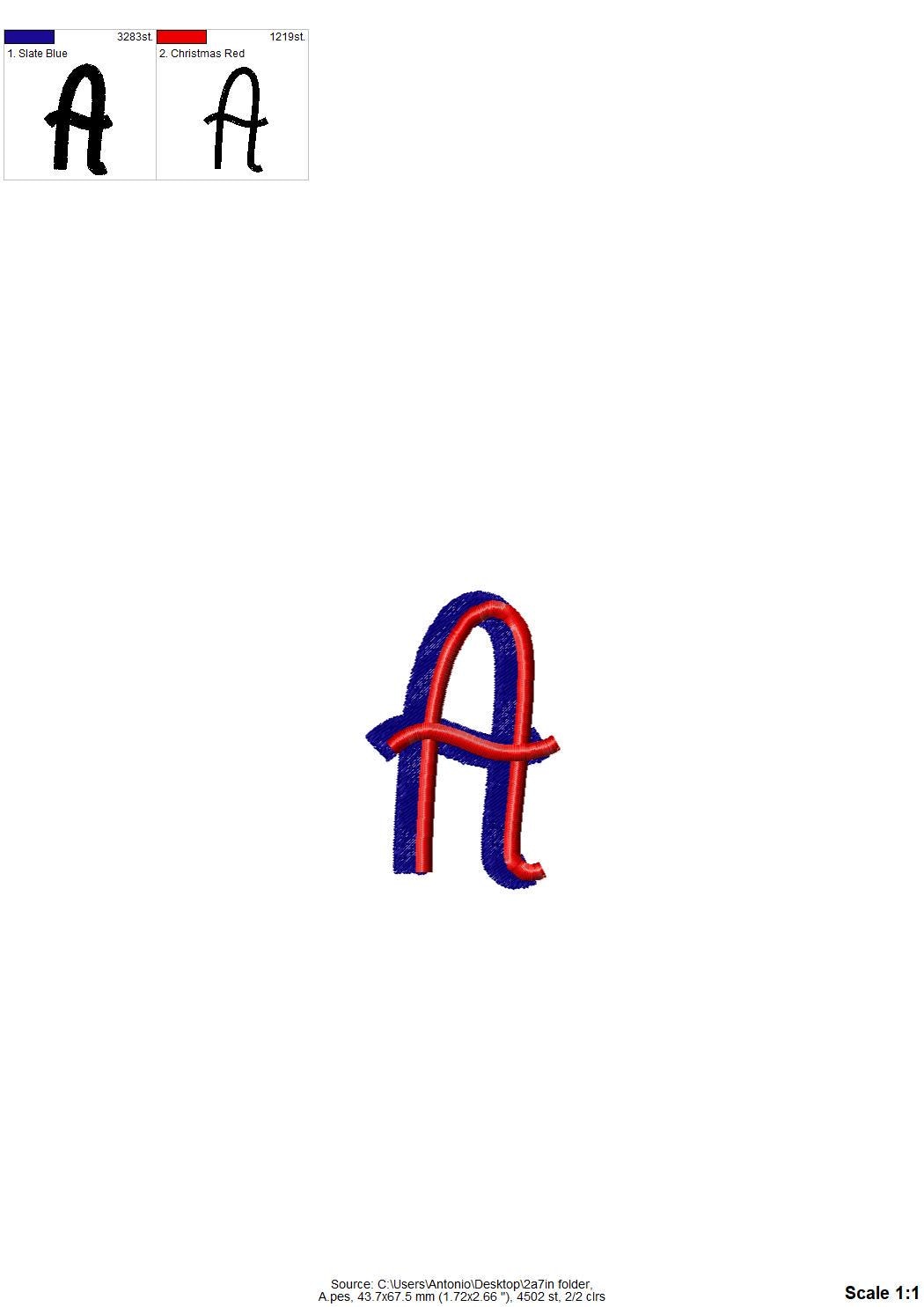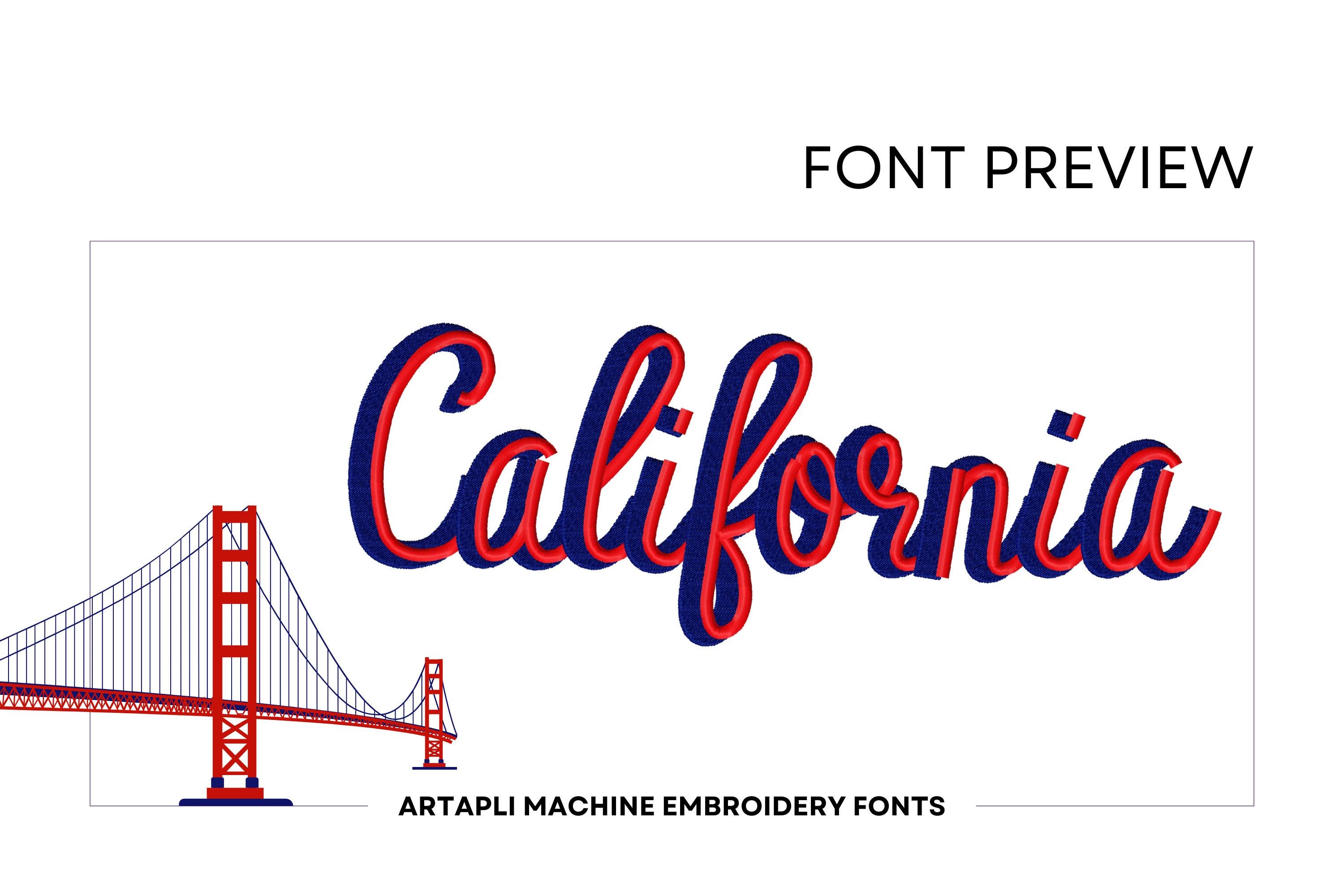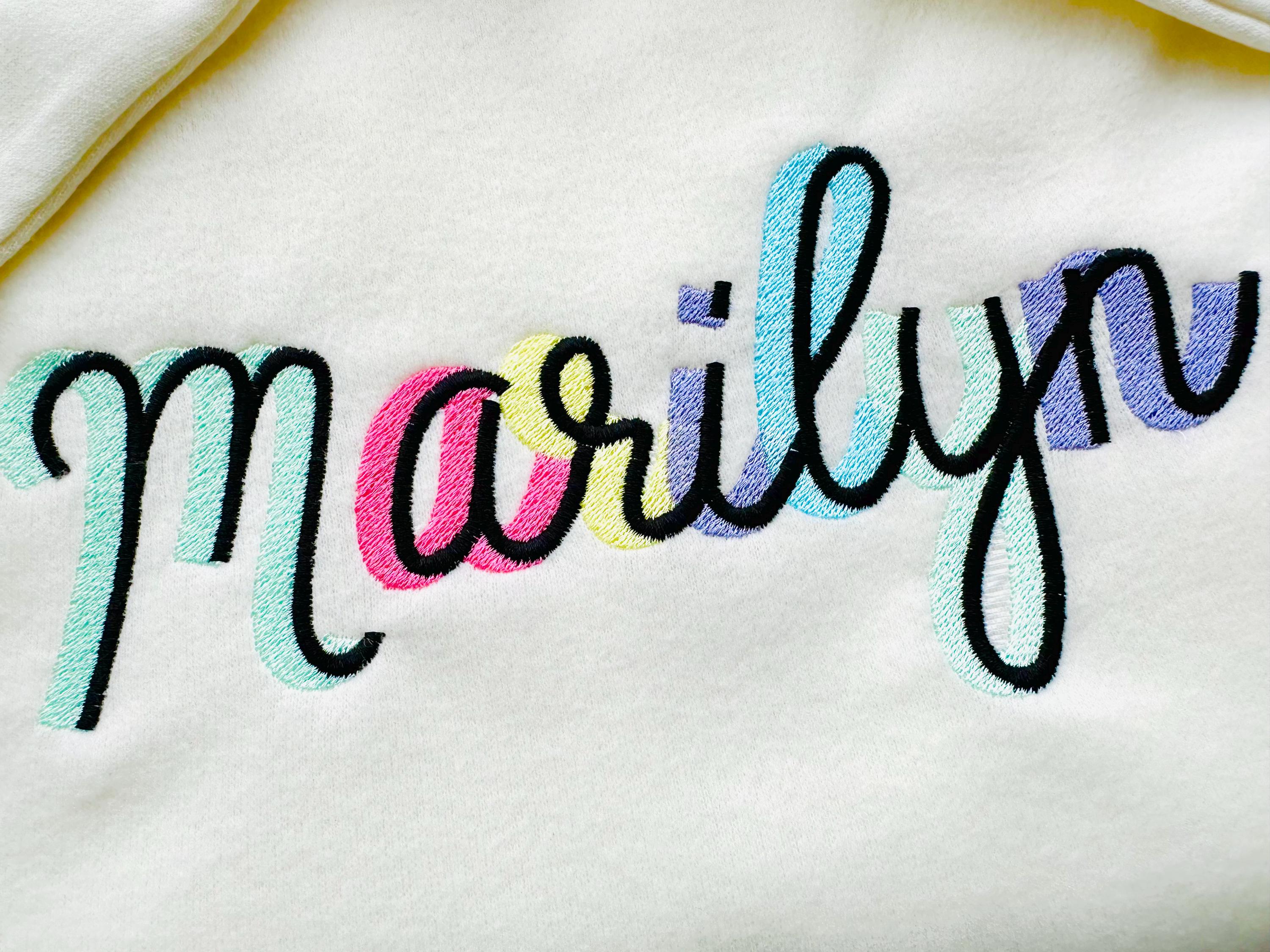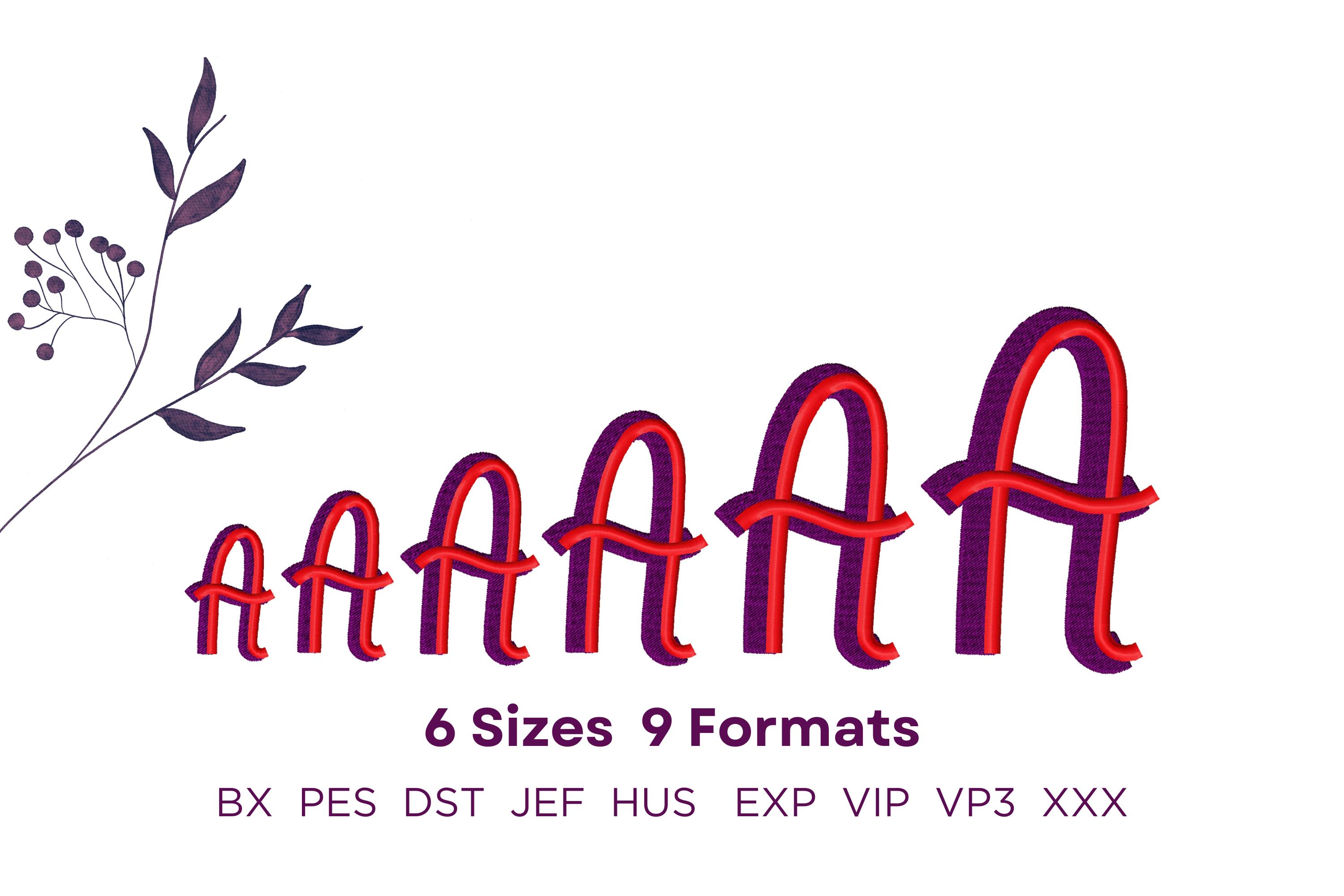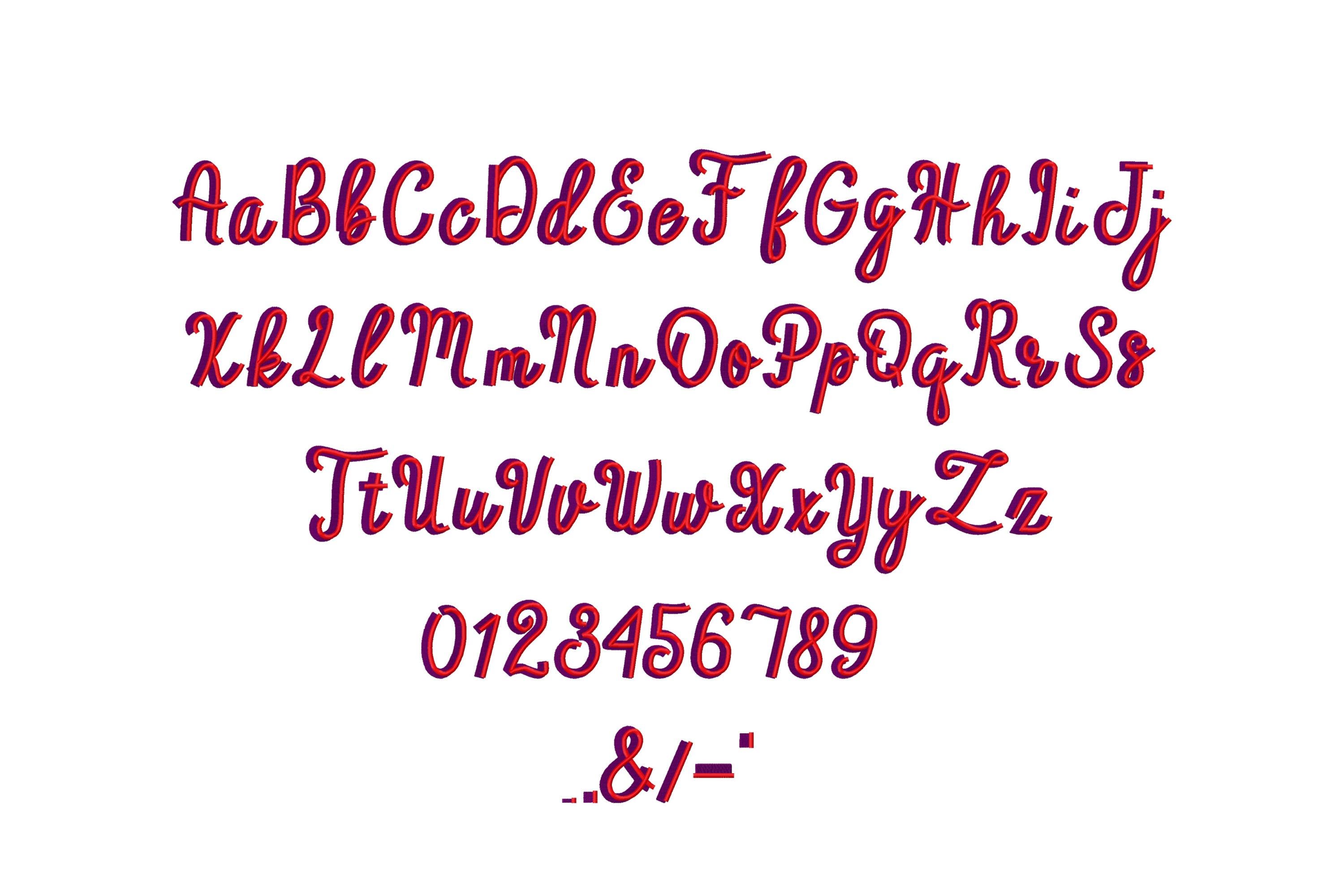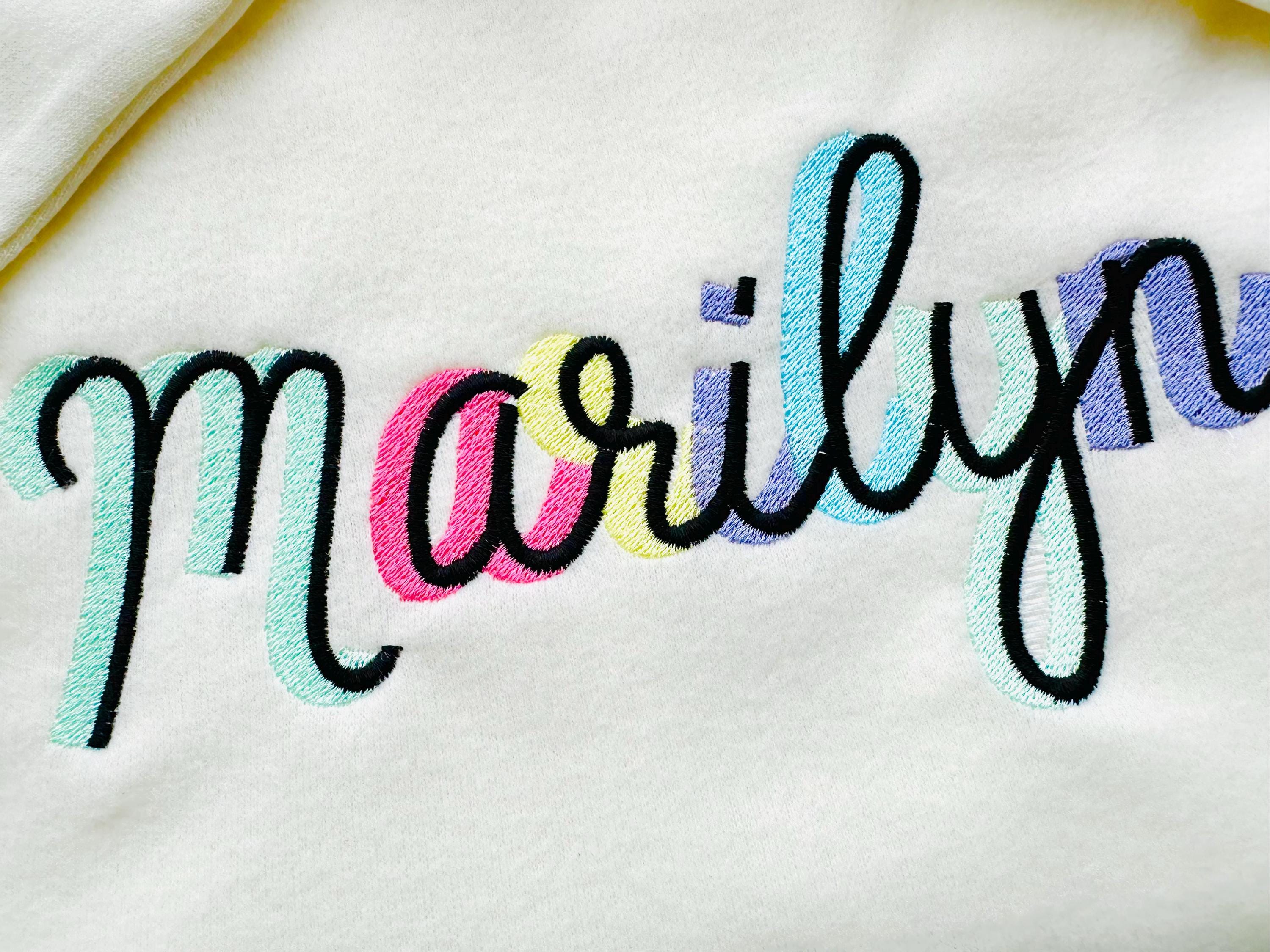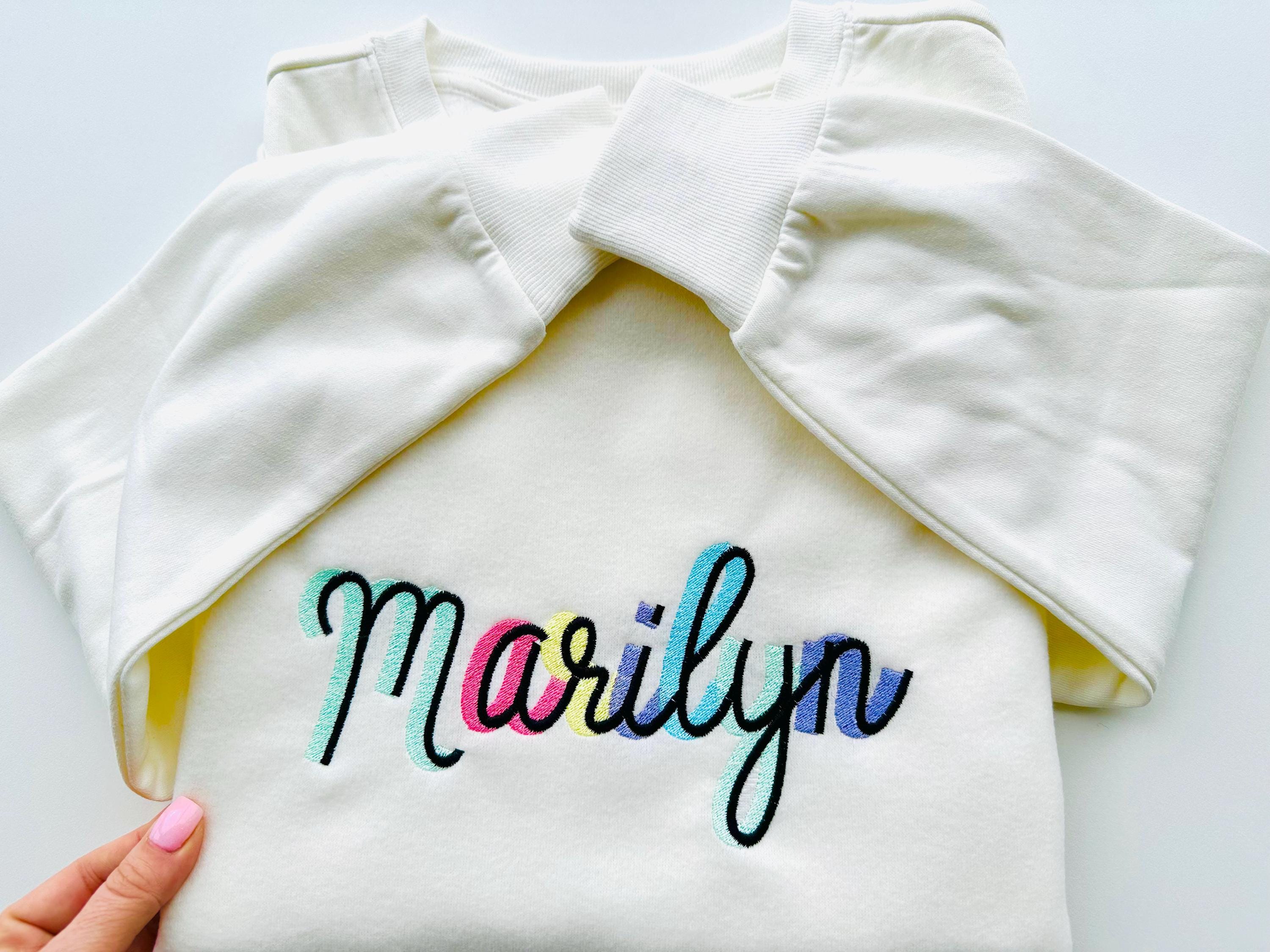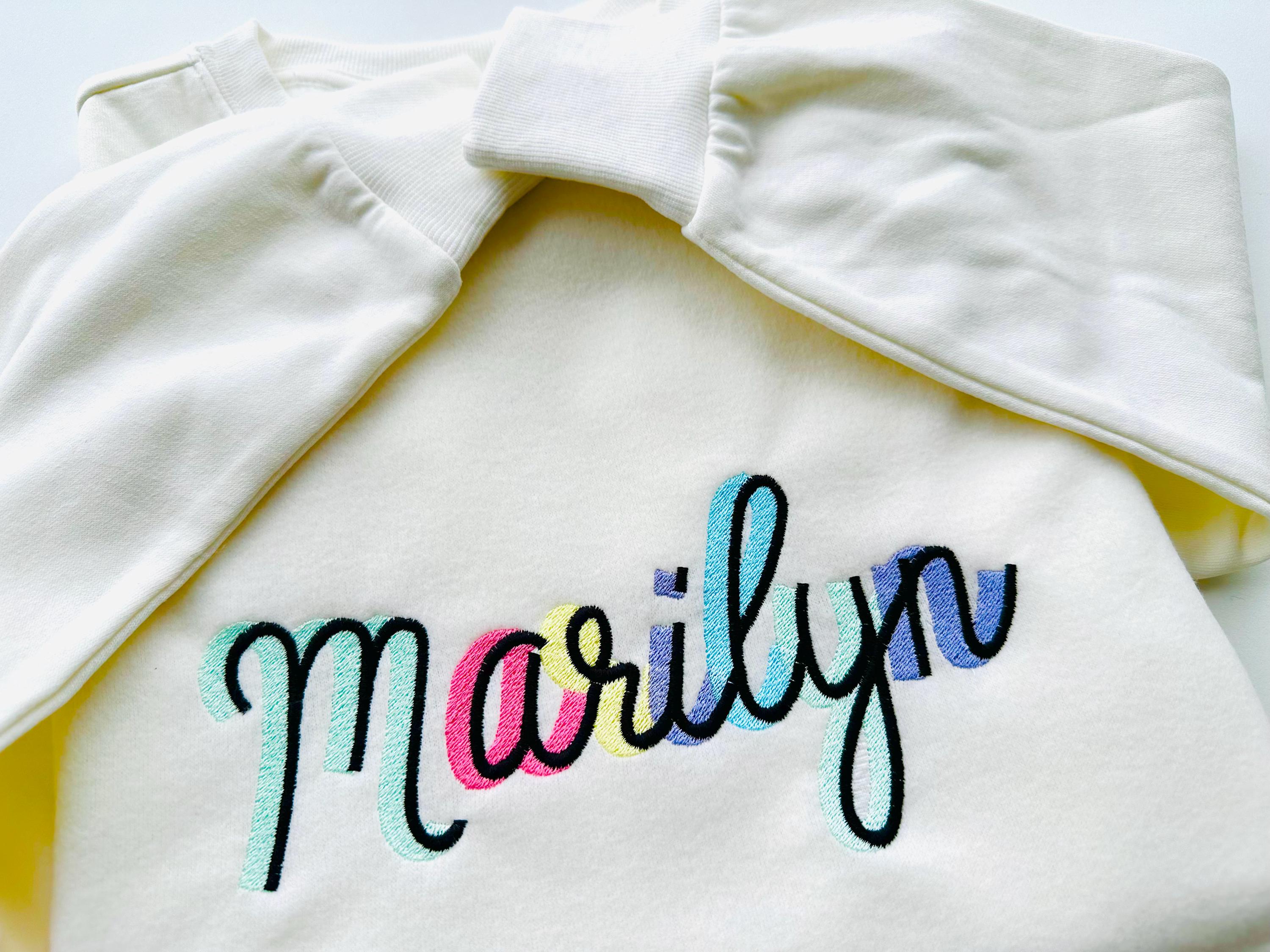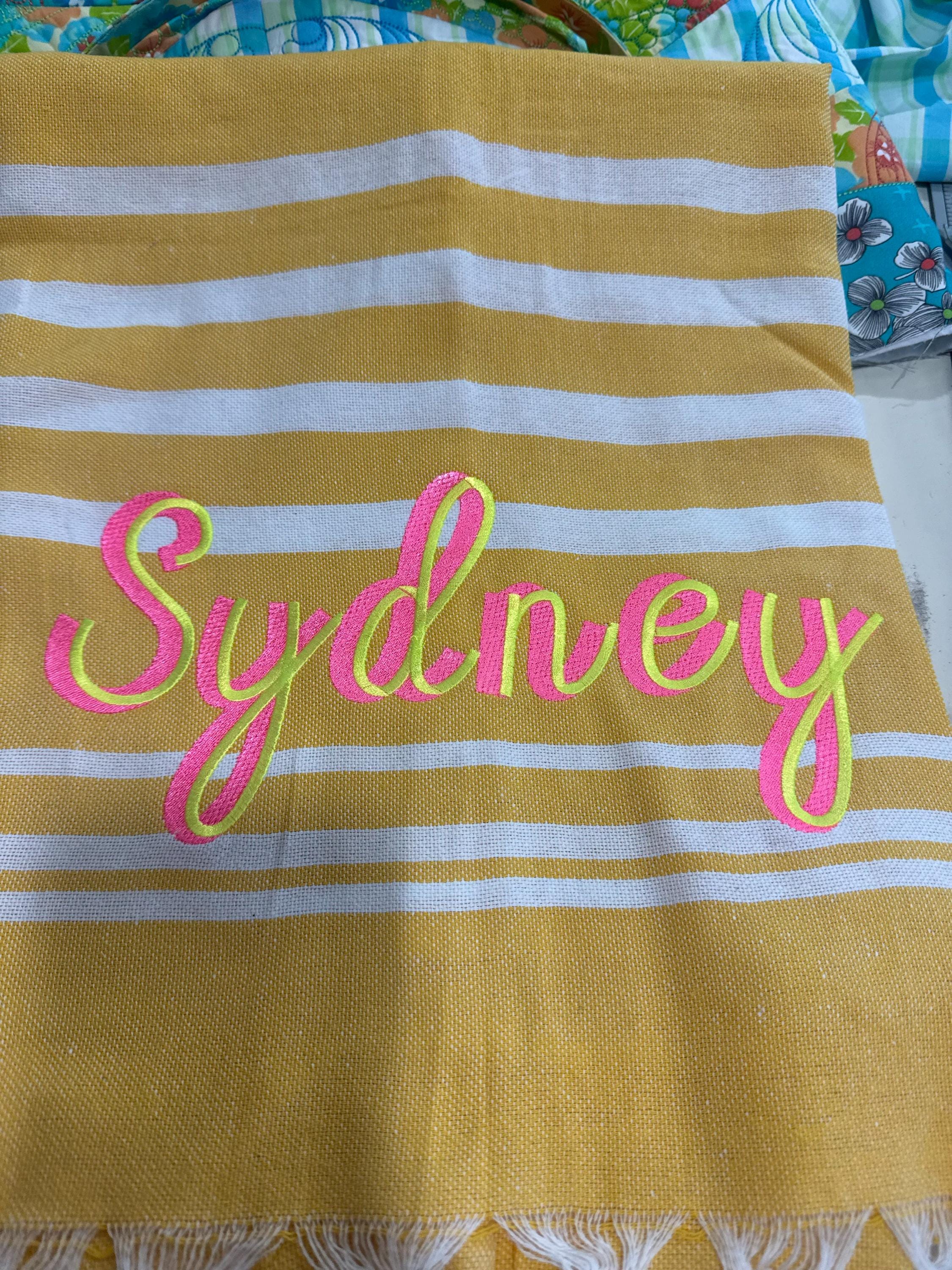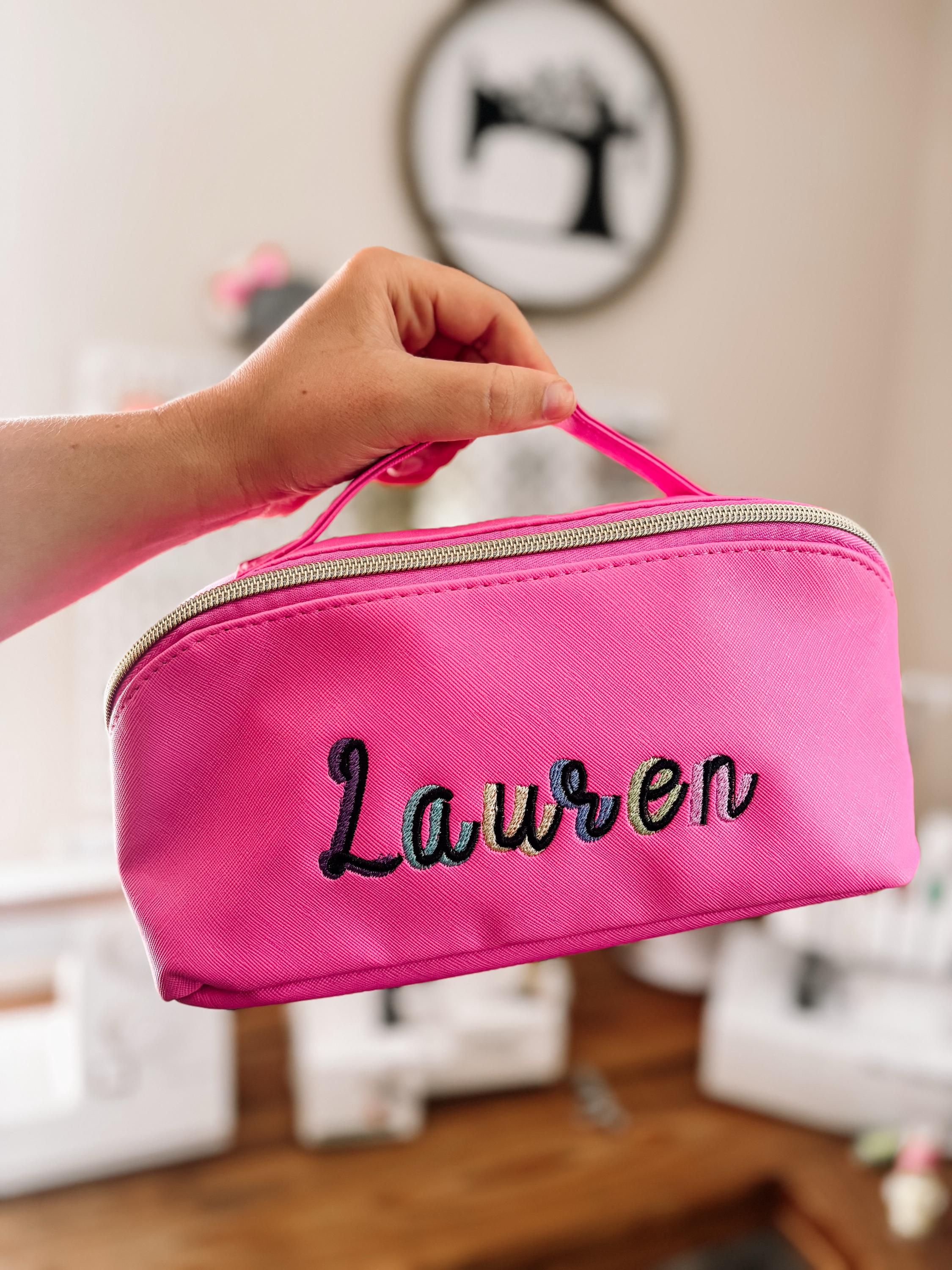
Handwritten script Shadow Font fill stitch double 2 color alphabet letters monogram machine embroidery designs sizes 1.7 up to 4.6 inch
Whole alphabet A-Z uppercase and lowercase letters, numbers 0-9, and punctuation.
Super effet qui rend toute création plus moderne et actuelle